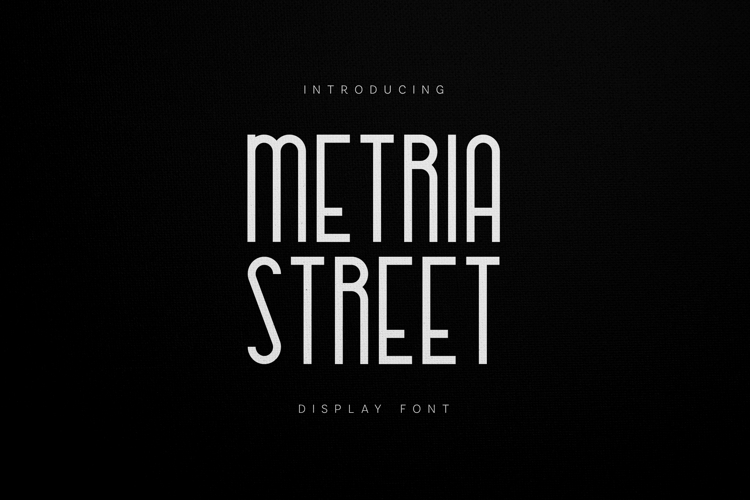
Metria Street Modern Condensed Display Font
Metria Street is a modern condensed display font designed with a clean, urban aesthetic and a strong vertical rhythm. Built with tall proportions and minimal contrast, it delivers a bold yet refined presence across contemporary layouts.
The letterforms are structured with smooth curves and precise vertical strokes, creating a balanced and highly readable composition. Its simplicity is what gives it strength — every character feels intentional, clean, and modern without unnecessary complexity.
Metria Street carries a subtle architectural and street-inspired tone. The condensed form makes it ideal for tight compositions, while the clean geometry keeps it versatile across different visual styles.
This typeface works especially well in:
• editorial headlines
• poster design
• branding identities
• street-style visuals
• modern layouts
• social media graphics
• logo design
• minimalist compositions
The font includes uppercase letters, lowercase letters, numerals, punctuation, symbols, and multilingual support, allowing it to perform across a wide range of creative and international projects.
With its clean structure, condensed form, and modern urban character, Metria Street is a display typeface designed to bring clarity, simplicity, and impact into your work.